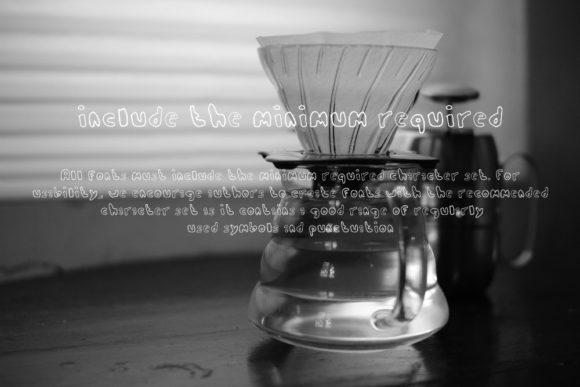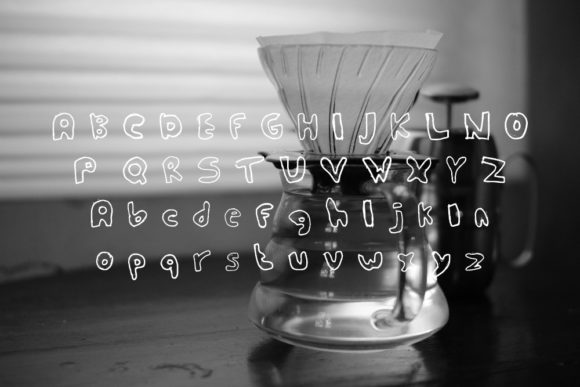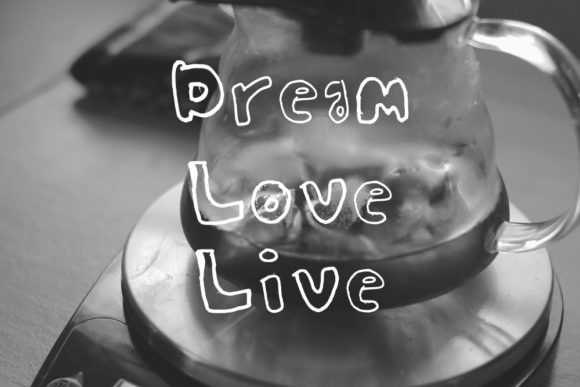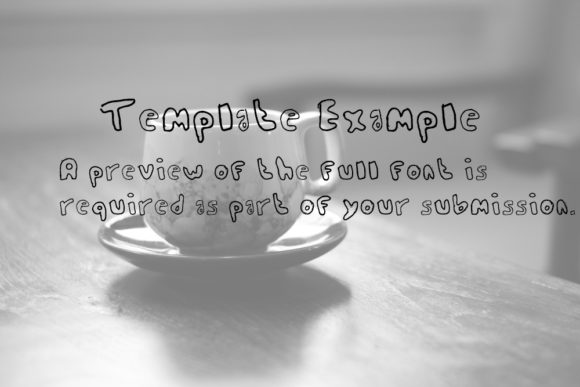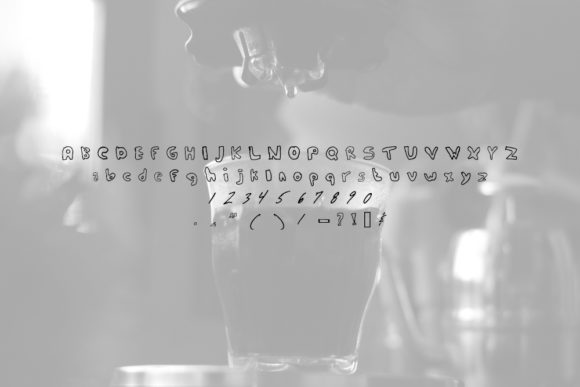
Avianty Font: Unleash Your Creativity with a Dash of Fun and Quirkiness
In the world of typography, fonts play a crucial role in bringing creative ideas to life. Among the numerous fonts available, Avianty Font stands out for its unique blend of fun, quirkiness, and authenticity. This enchanting display font has the power to transform any design concept into a true standout, making it a favorite among designers and crafters.
The Essence of Avianty Font
Avianty Font embodies the perfect balance of playfulness and sophistication, making it an ideal choice for creative projects that demand a touch of whimsy. Its distinctive characters and carefully crafted design elements infuse a sense of freshness and originality into any design. Whether you’re working on a branding project, crafting a social media post, or designing a poster, Avianty Font is sure to make your creative vision shine.
Key Features of Avianty Font
• Unique and Quirky Design: Avianty Font boasts a one-of-a-kind design that sets it apart from other fonts. Its quirky and fun elements add a touch of personality to your designs.
• Authentic and Fresh Feel: The font’s carefully crafted characters and design elements give it an authentic and fresh feel, perfect for creative projects that demand a modern edge.
• Display Font: Avianty Font is specifically designed as a display font, making it ideal for headlines, titles, and short text passages.
• High Versatility: This font can be used across various design projects, from branding and advertising to social media and crafting.
Who Can Benefit from Avianty Font?
Avianty Font is a versatile design tool that can benefit a wide range of professionals and hobbyists, including:
• Graphic Designers: Add a touch of quirkiness and fun to your designs with Avianty Font, perfect for branding, advertising, and marketing projects.
• Social Media Influencers: Elevate your social media posts with eye-catching headlines and titles that showcase your personality.
• Crafters and DIY Enthusiasts: Use Avianty Font to add a personal touch to your crafting projects, such as handmade cards, gift tags, and posters.
• Marketing and Advertising Agencies: Create attention-grabbing campaigns with Avianty Font’s unique and quirky design.
Tips for Using Avianty Font Effectively
To get the most out of Avianty Font, consider the following tips:
• Use it as a Display Font: Avianty Font is designed to make a statement, so use it for headlines, titles, and short text passages.
• Experiment with Colors and Textures: Combine Avianty Font with bold colors and textures to create visually striking designs.
• Pair it with Complementary Fonts: Pair Avianty Font with simpler fonts to create a harmonious and balanced design.
Avianty Font is a game-changer for designers and crafters looking to add a dash of fun and quirkiness to their creative projects. With its unique design, authentic feel, and high versatility, this enchanting display font is sure to turn any design concept into a true standout. Whether you’re a professional designer or a hobbyist, Avianty Font is an excellent addition to your design toolkit.